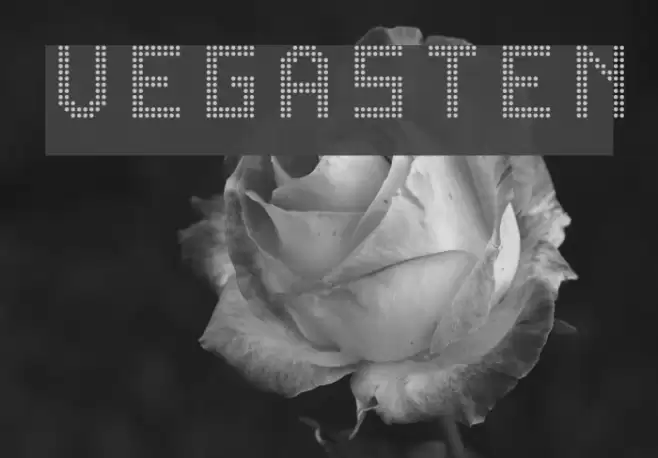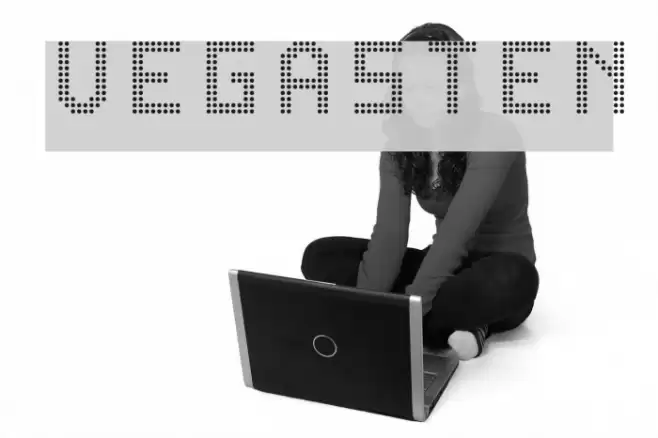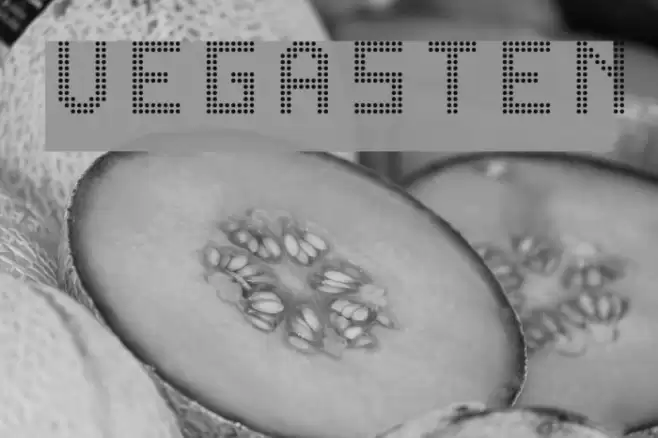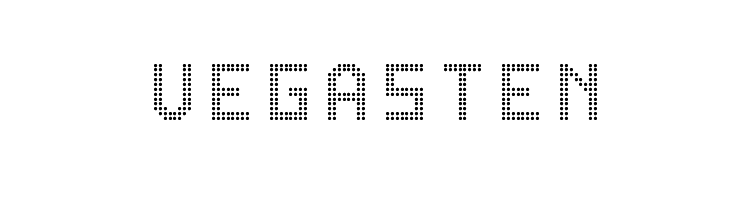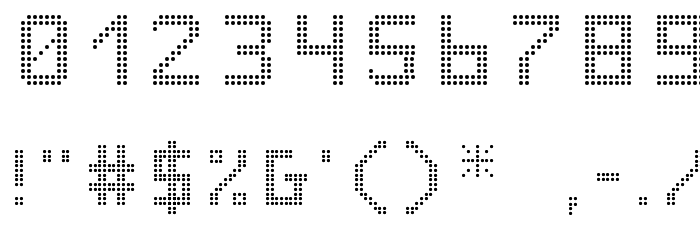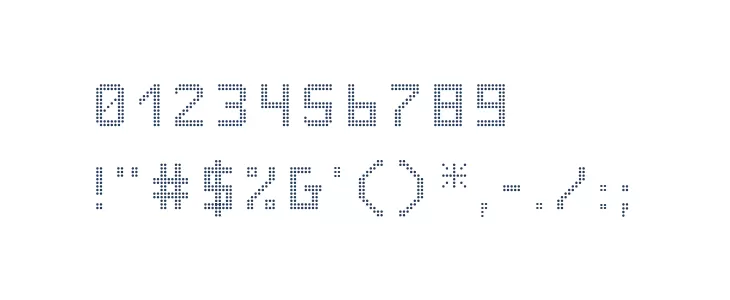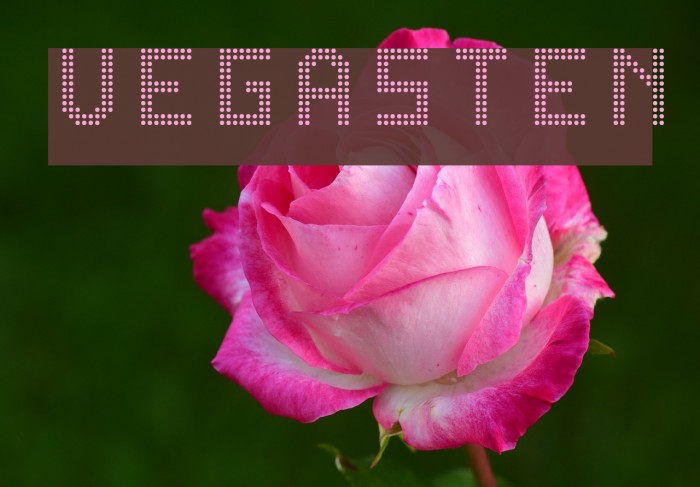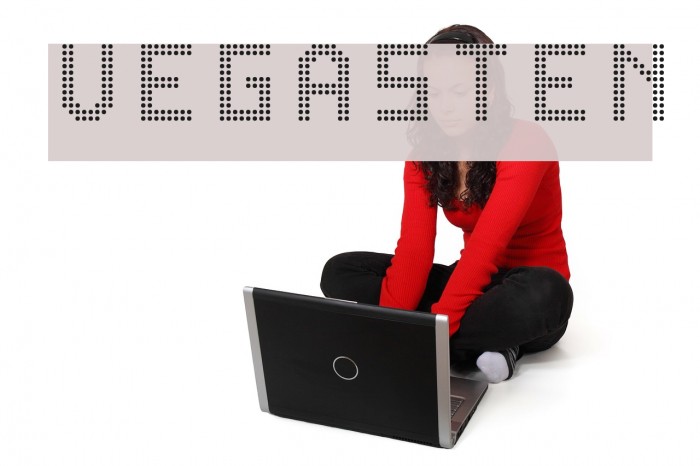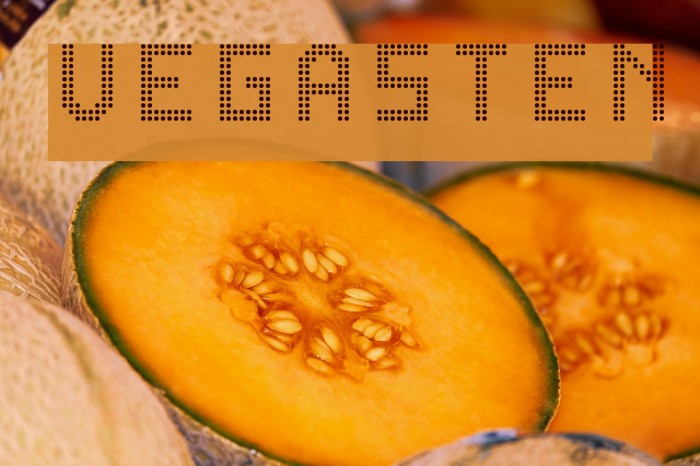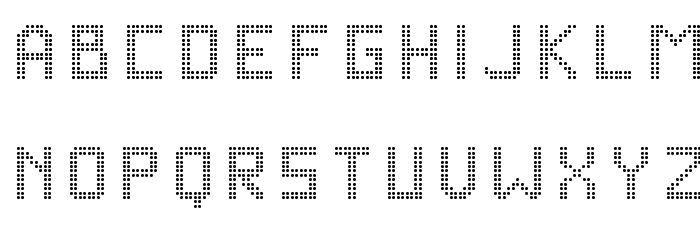
VegasTEN Font
VegasTEN Description
This font features a distinctive dotted design, where each character is composed of a grid of small, evenly spaced dots. The geometric arrangement gives it a digital and modern appearance, reminiscent of LED displays or electronic signage. The uppercase and lowercase letters maintain a consistent height and width, ensuring uniformity across the typeface. Numbers and special characters follow the same dot matrix pattern, providing a cohesive look throughout. The font's unique style makes it stand out, offering a futuristic and tech-savvy vibe that is both eye-catching and innovative.
A modern, dotted font with a digital, LED display style from Uncategorized fonts.